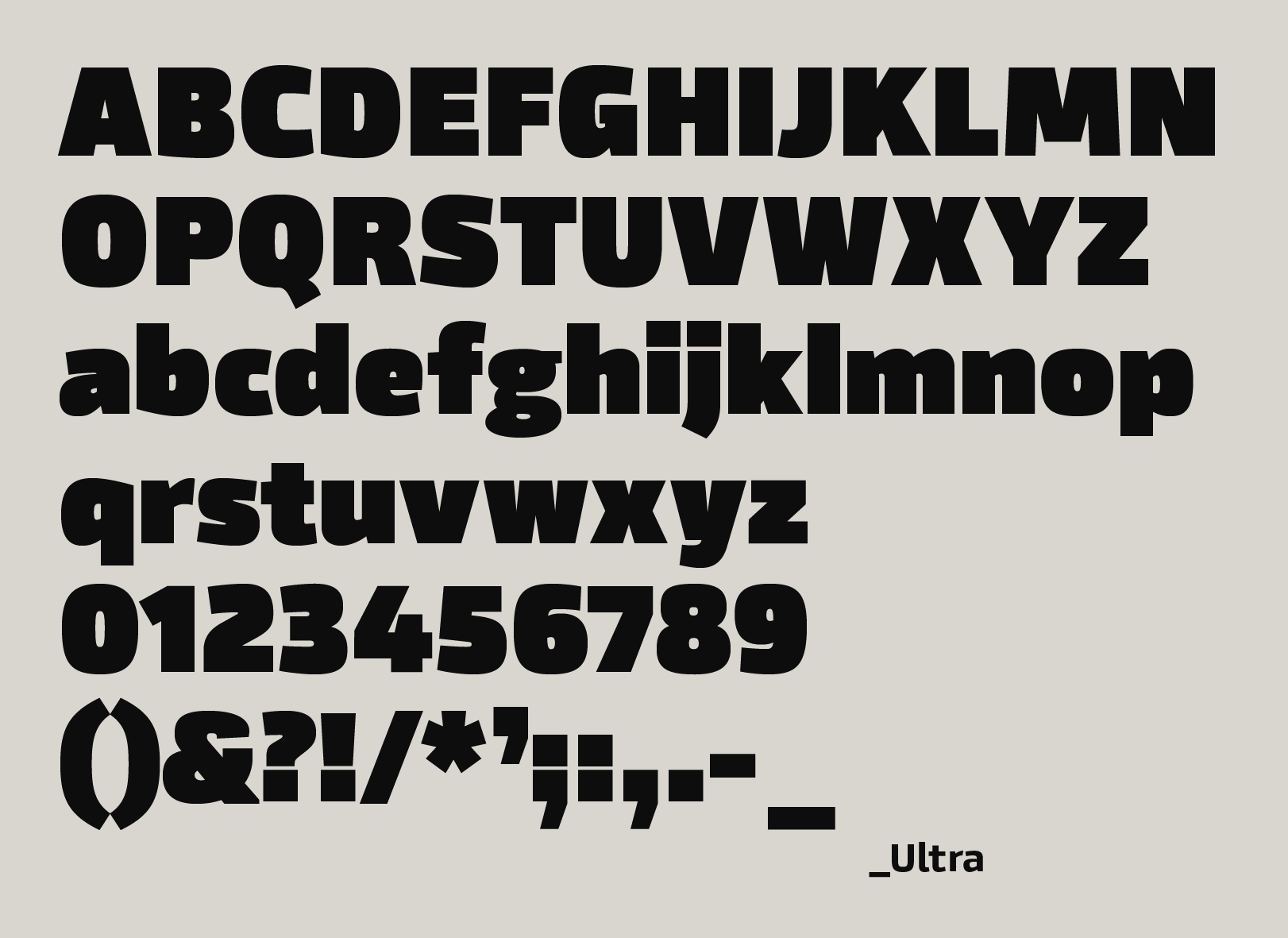
Byker is a geometric sans-serif that blends technology with handcrafted forms. Characters are constructed digitally from a technical grid and overlaid with handmade curves. Combining this process creates a robust and organic font that is precise with subtle movement and personality without being too clinical. Remastered to version 2.0, the type family now includes an ultra display weight and improved OpenType features. Byker is also available as a variable font.
The font includes eight weights with italics and over 900 characters per style. OpenType features consist of eleven number variations; inferiors, superiors, fractions, tabular, lining, and oldstyle. It also has alternate lowercase a, e, g, and y, small caps and language support covering Western, Southern, and Central Europe.